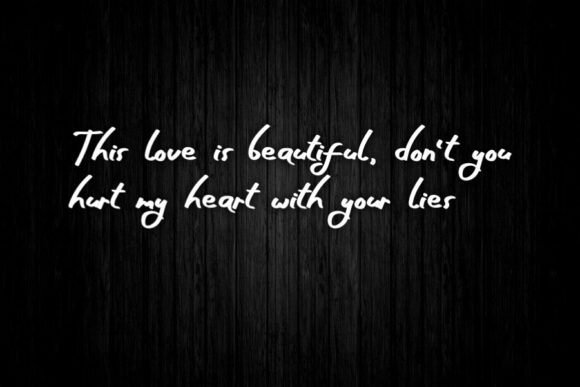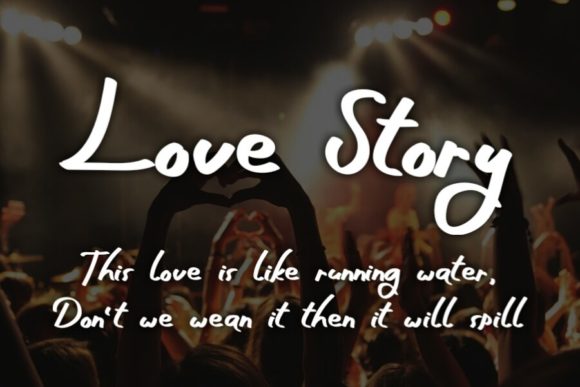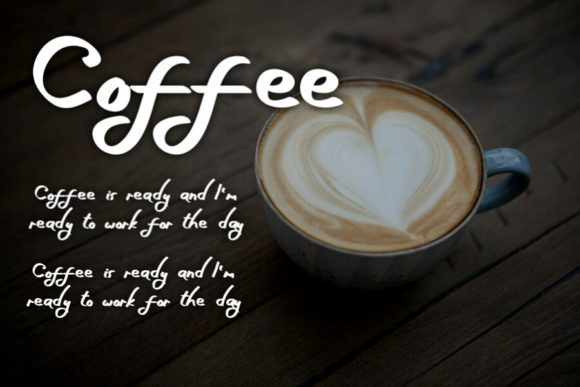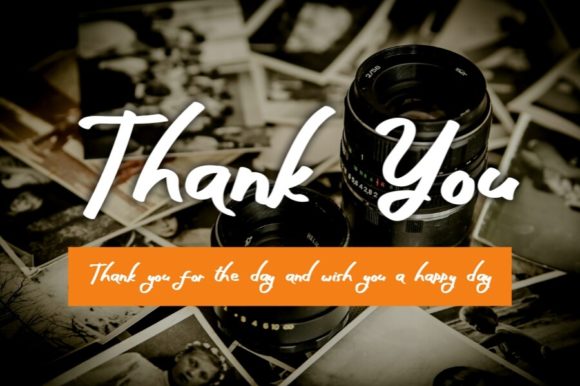
Introducing Bujang Font: Elevate Your Designs with Elegance and Boldness
In the world of typography, a font can make or break a design. For designers and crafters looking to add a touch of sophistication and personality to their projects, Bujang Font is an exceptional choice. This bold and elegant handwritten font is designed to make a statement, whether it’s used on busy backgrounds or as a standalone headline.
The Characteristics of Bujang Font
Bujang Font boasts a unique blend of boldness and elegance, making it a versatile addition to any designer’s toolkit. Its handwritten nature gives it a personal and approachable feel, while its bold strokes ensure it remains eye-catching and impactful. This font is perfect for those looking to add a touch of sophistication to their designs without sacrificing readability.
What Makes Bujang Font Stand Out?
• Bold and Elegant: Bujang Font combines bold strokes with elegant lines, creating a visually appealing contrast that captures attention.
• Versatility: Whether you’re working on a busy background or a minimalist design, Bujang Font adapts seamlessly, ensuring your message always stands out.
• Handwritten Touch: The font’s handwritten nature adds a personal touch to your designs, making them more relatable and engaging.
• Readability: Despite its boldness, Bujang Font maintains high readability, making it suitable for both headlines and body text.
Use Cases for Bujang Font
The versatility of Bujang Font makes it suitable for a wide range of design projects. Here are some use cases where Bujang Font truly shines:
• Branding and Logos: Create a lasting impression with a bold and elegant logo that reflects your brand’s personality.
• Posters and Flyers: Grab attention with eye-catching headlines that stand out on busy backgrounds.
• Digital Media: Enhance your social media posts, website headers, and email newsletters with a touch of elegance and boldness.
• Packaging: Make your product packaging stand out on store shelves with unique and captivating typography.
• Invitations and Cards: Add a personal touch to your invitations, greeting cards, and other paper crafts.
Tips for Using Bujang Font Effectively
To get the most out of Bujang Font, consider the following tips:
• Mix and Match: Combine Bujang Font with other fonts to create visual interest and hierarchy in your designs.
• Play with Colors: Experiment with different colors to find the perfect match that enhances the font’s bold and elegant features.
• Adjust Size and Weight: Don’t be afraid to adjust the font size and weight to suit different design contexts.
• Keep it Simple: While Bujang Font can handle busy backgrounds, sometimes less is more. Use it as a focal point and keep the rest of your design clean and simple.
Bujang Font is a powerful tool for designers and crafters looking to elevate their projects with a bold and elegant touch. Its versatility, readability, and unique style make it an excellent choice for a wide range of design applications. By incorporating Bujang Font into your typography arsenal, you’ll be able to create stunning designs that capture attention and leave a lasting impression.